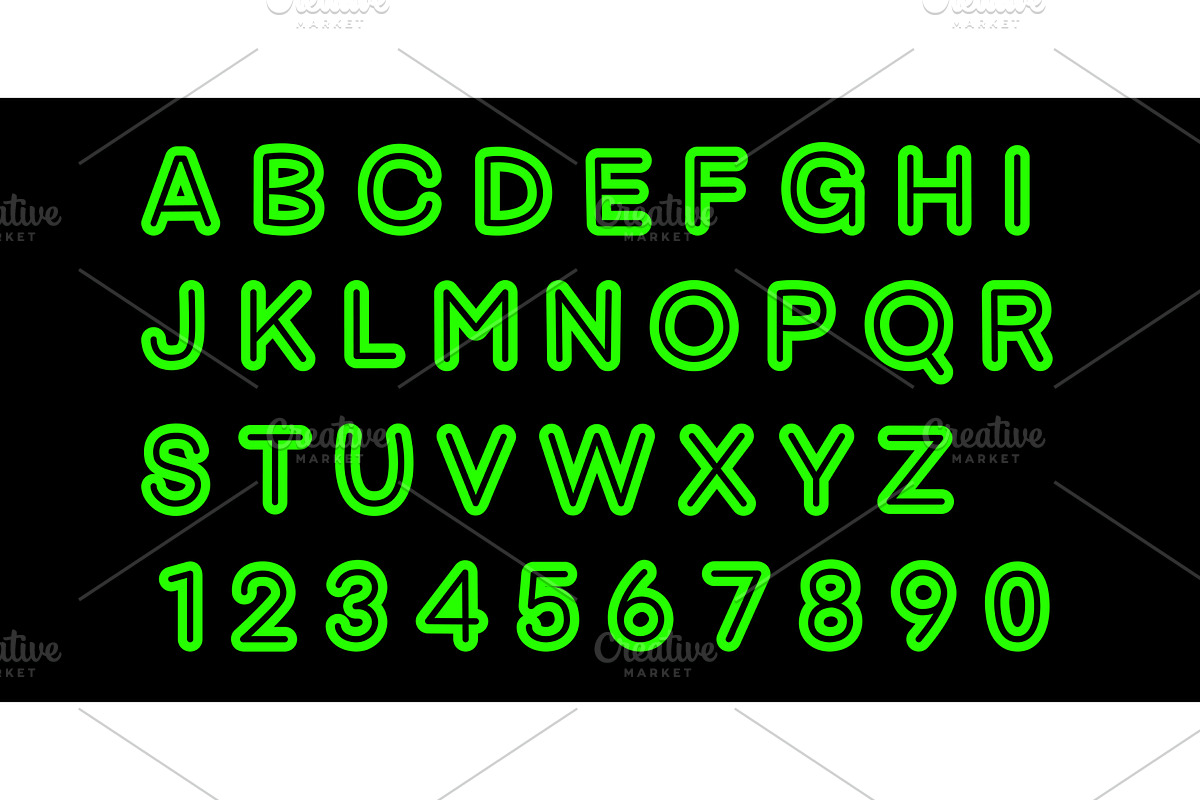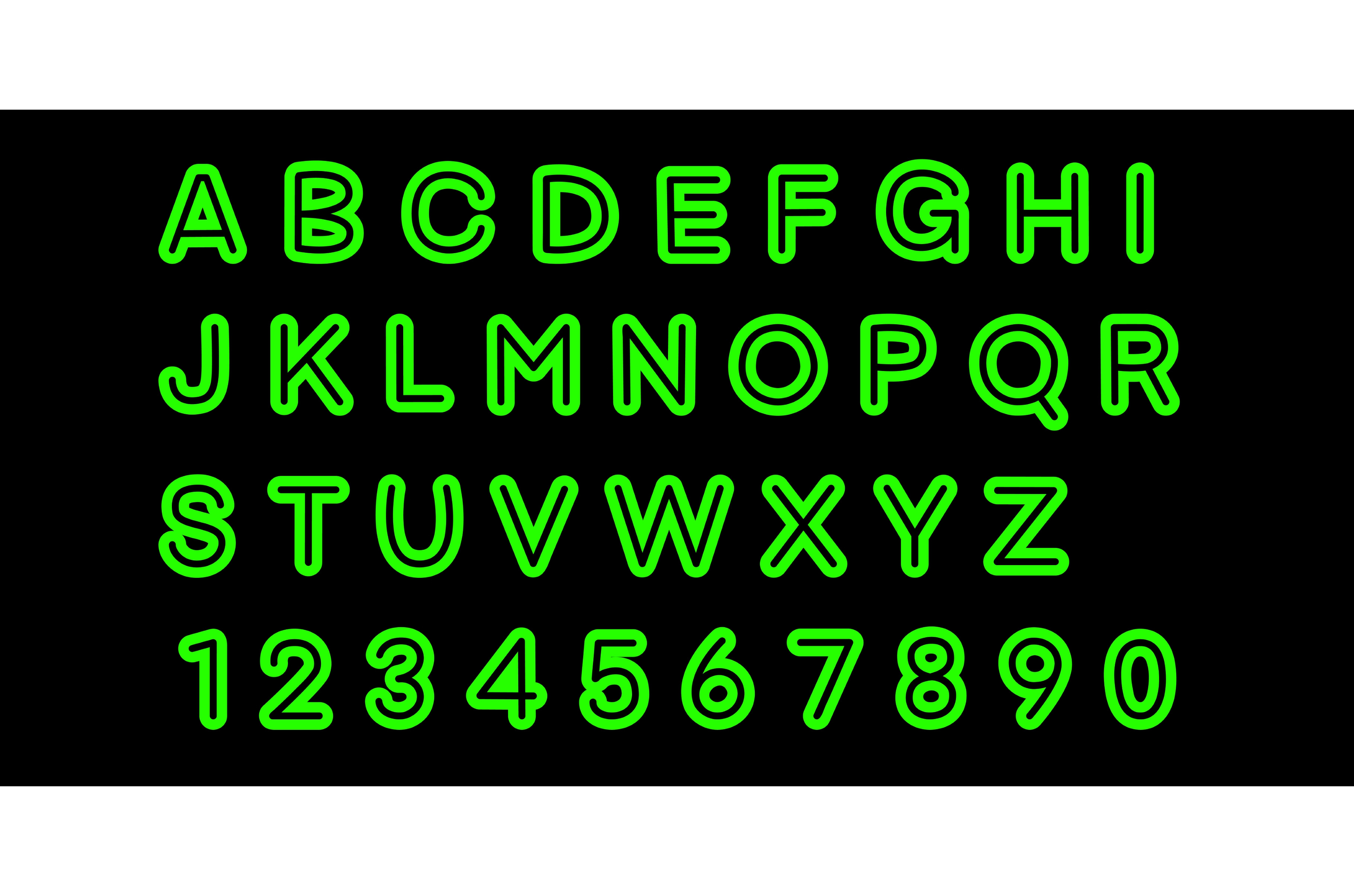
Bright neon green alphabet font
Bright neon green alphabet font. Letters and numbers in acid green. Symbols for signage, headlines, and text highlighting, vector graphics